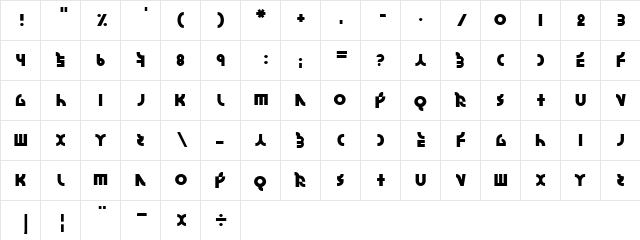
Japanica Asiatic
Design Context for Japanica Typeface
Japanica is a composed and adaptable typeface that performs quietly and consistently across a wide range of design contexts.